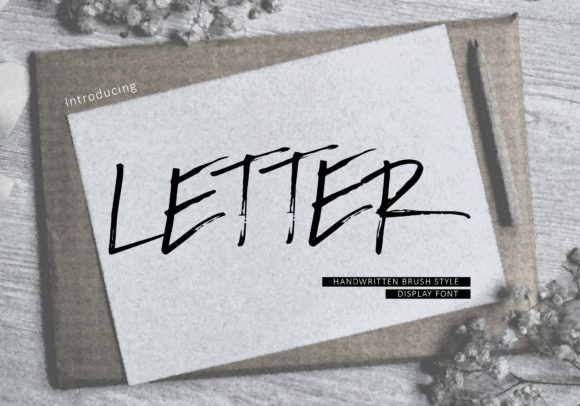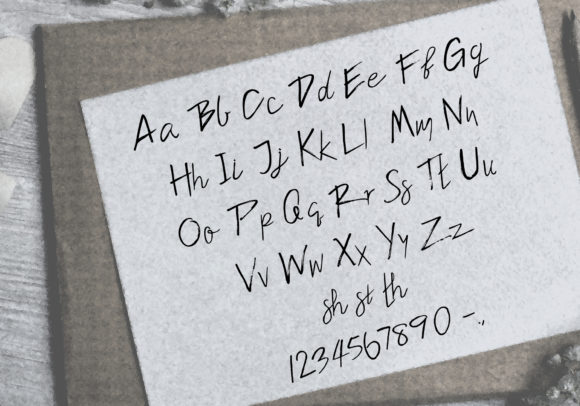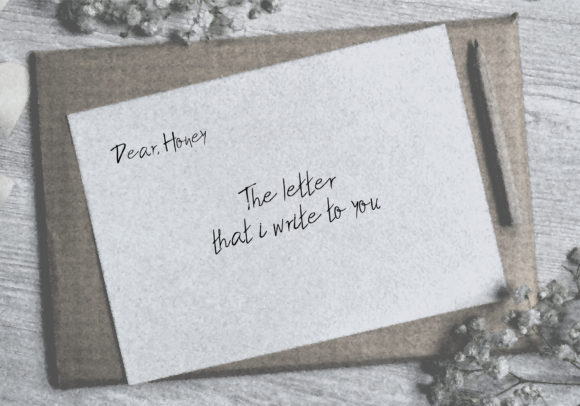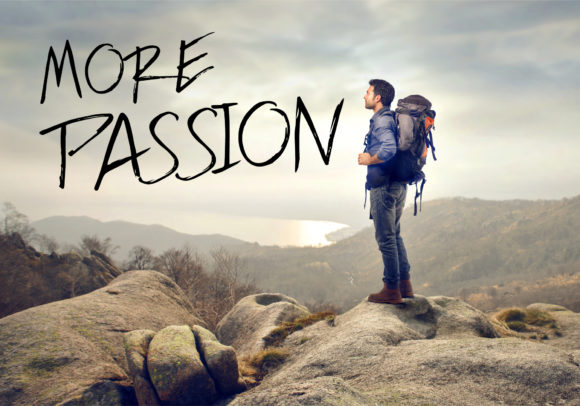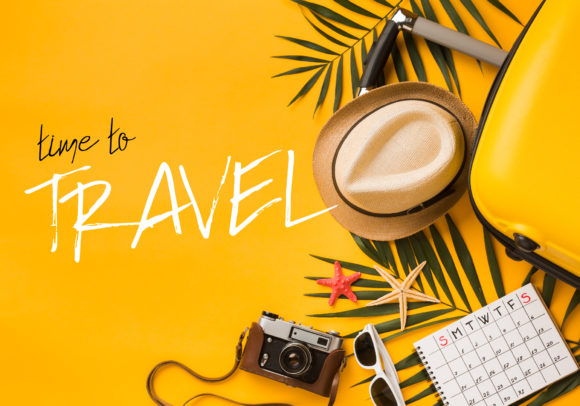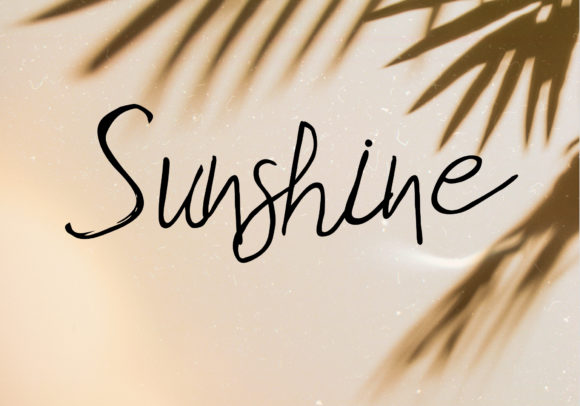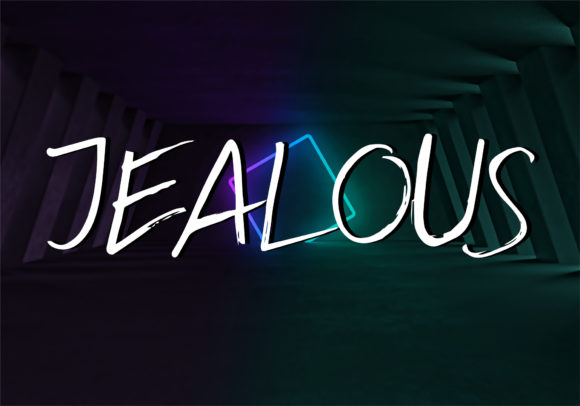
Letter Font
About Letter Font
Letter is a casual, and unique handwritten font, created by using a brush pen. Clean and a little bit quirky, this font is the perfect fit for all of your logos, branding, social media, and crafty DIY projects.